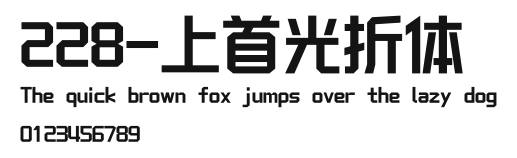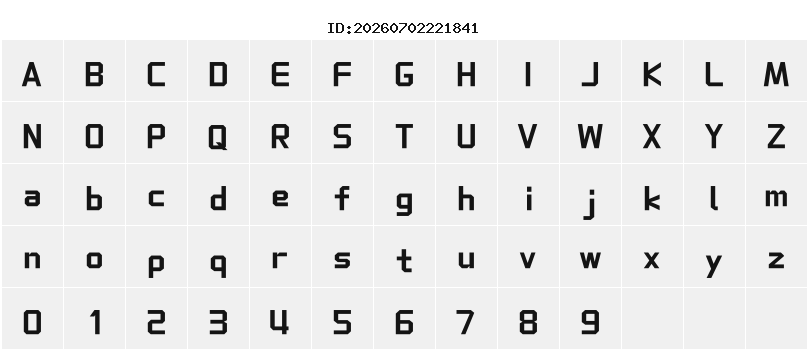
228-上首光折体 Preview
• Font Name: 228-上首光折体
• Full Font Name: 228-上首光折体
About 228-上首光折体.ttf
228-上首光折体.ttf is a modern, elegant sans-serif font designed for ultimate readability and visual harmony. Perfect for branding, headlines, web design, and print materials.